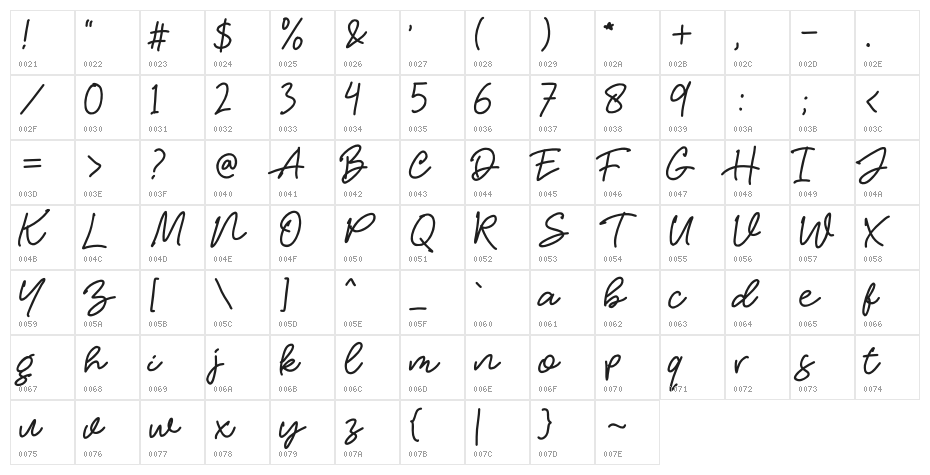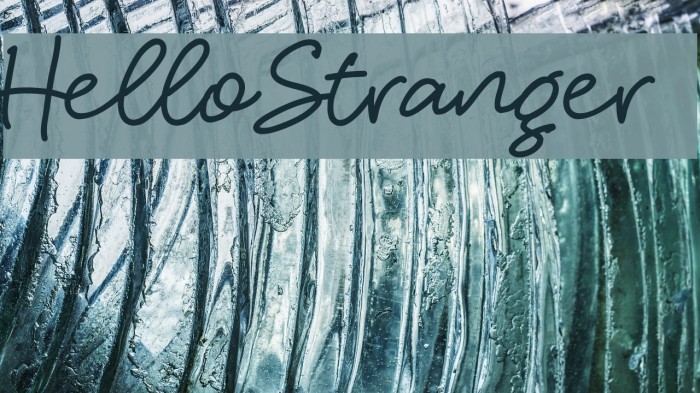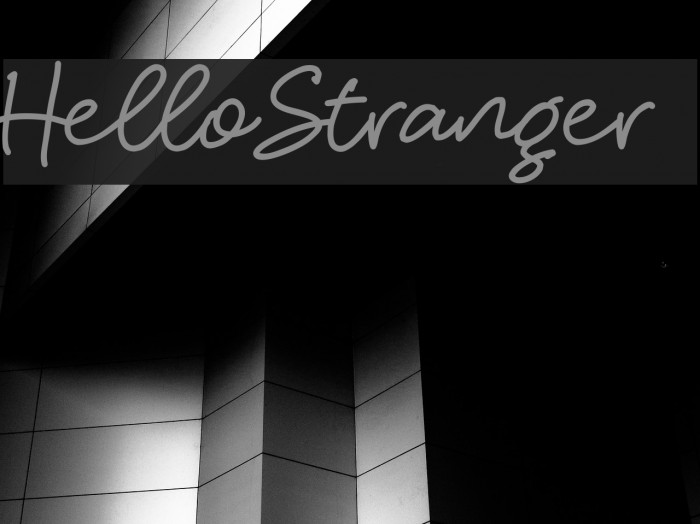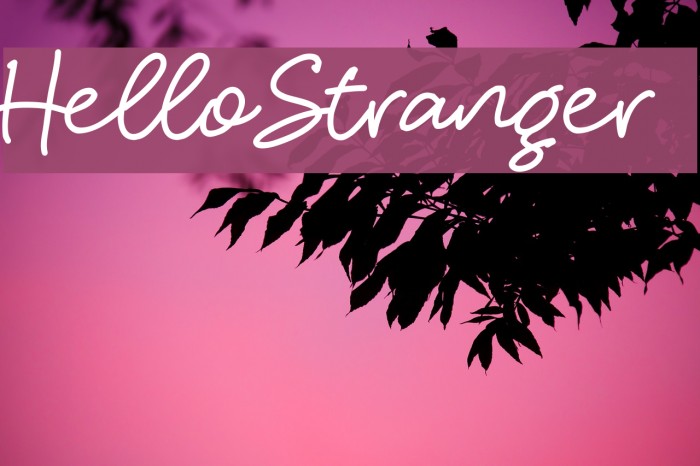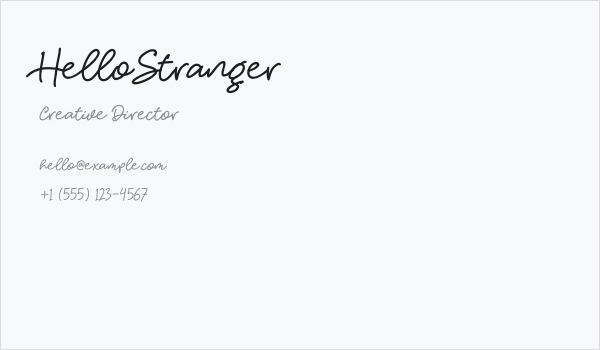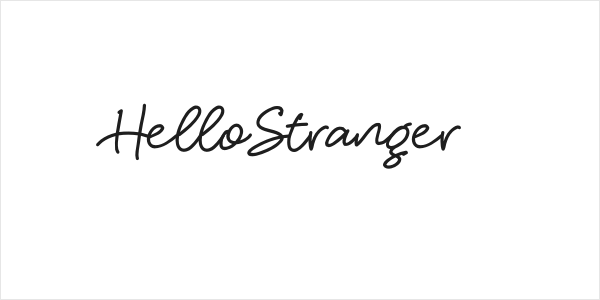
HelloStranger Font
HelloStranger Description
This font is a lively and expressive handwritten style that captures the essence of casual, personal writing. The letters are fluid and connected, giving it a natural and spontaneous appearance. The uppercase letters are bold and slightly slanted, while the lowercase letters maintain a consistent flow, enhancing readability. The numbers and special characters are crafted with the same energetic style, ensuring uniformity across all elements. This font's playful and informal nature makes it ideal for projects that require a personal touch or a creative flair.
| Use Case | Headlines, Personal projects, Creative designs |
| Proposed Projects | Ideal for greeting cards, personal branding, social media graphics, and creative invitations. |